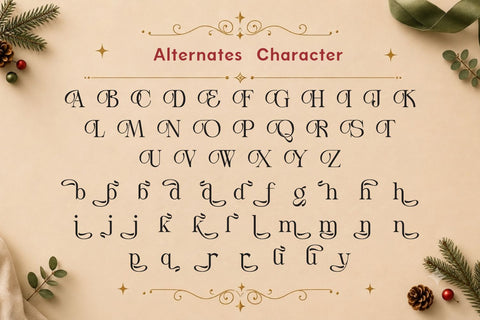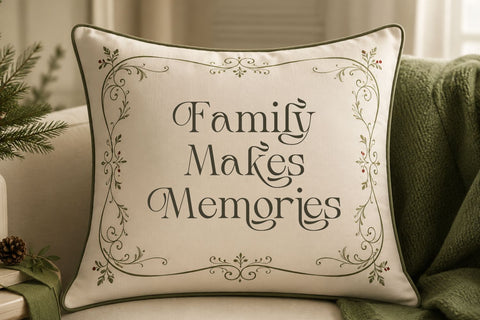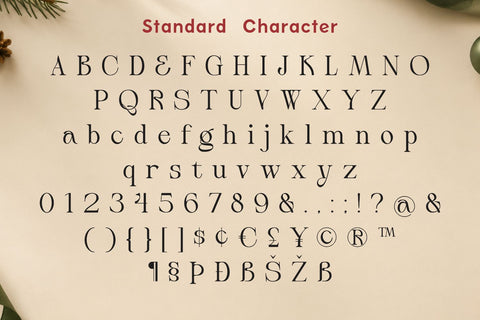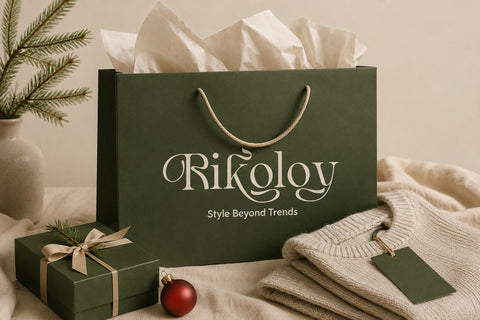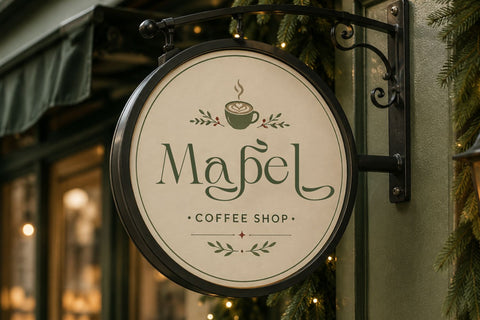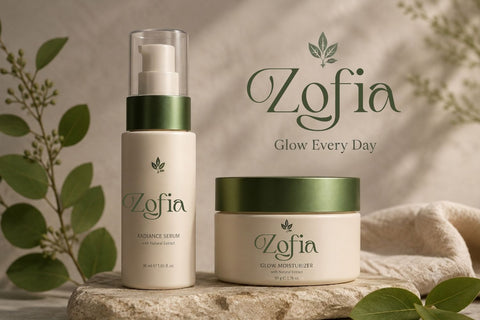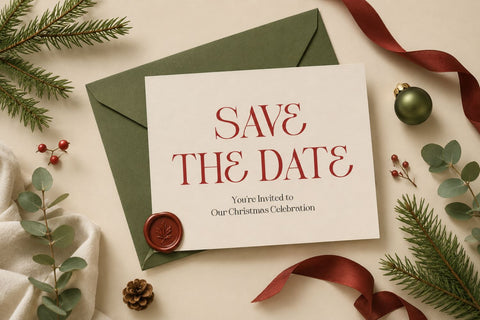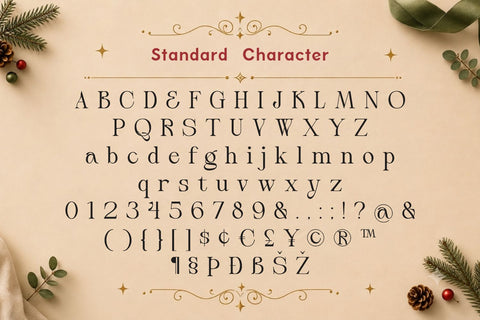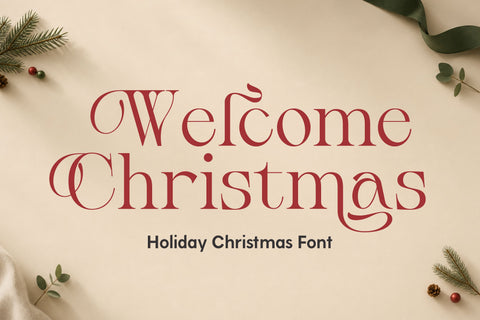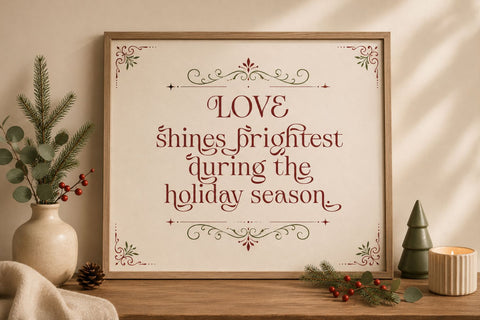
Christmas Font – Welcome Christmas
Welcome Christmas – Christmas Font
Welcome Christmas is a festive Christmas font designed to celebrate the joy, warmth, and excitement of the holiday season. Featuring charming letterforms with a cheerful personality, this font creates a welcoming atmosphere that perfectly captures the magic of Christmas, making every design feel cozy, joyful, and unforgettable.
Crafted with a playful yet elegant holiday style, Welcome Christmas combines decorative festive details with excellent readability. Every character is carefully designed to deliver a beautiful balance between seasonal charm and clean typography, making it suitable for everything from classic Christmas projects to modern holiday branding.
Inspired by snowy winter mornings, glowing Christmas lights, beautifully decorated homes, and joyful family celebrations, Welcome Christmas brings the warmth of the season into every creative project. Its inviting letterforms create typography that feels friendly, heartwarming, and filled with holiday spirit.
The font family includes **2 carefully designed styles: Regular and Italic**, giving you additional flexibility for creating beautiful typographic compositions. The **Regular** style offers a clean, festive appearance that works perfectly for headlines, logos, and branding, while the **Italic** style adds elegant movement and emphasis for quotes, invitations, greeting cards, and decorative accents. Together, they provide a harmonious combination for creating dynamic holiday designs.
Welcome Christmas is perfect for greeting cards, holiday invitations, gift tags, festive packaging, seasonal branding, posters, social media graphics, Christmas promotions, and winter-themed marketing materials. It also works beautifully for Cricut projects, SVG designs, handmade ornaments, stickers, scrapbooking, personalized gifts, and DIY decorations. Whether used in print or digital media, Welcome Christmas adds festive warmth and timeless holiday charm to every creation.
*Key Features*
**Festive Christmas Style**
Charming holiday-inspired letterforms filled with warmth and seasonal spirit.
**2 Font Styles**
Includes **Regular** and **Italic** styles for versatile typography.
**Warm & Inviting Design**
Creates cozy, cheerful, and memorable Christmas compositions.
**Clean & Readable**
Balanced decorative characters with excellent display readability.
**Craft-Friendly Design**
Perfect for Cricut, SVG, DIY projects, and handmade decorations.
**Multilingual Support**
Extended character set for international creative projects.
*Perfect For*
• Christmas & Holiday Designs
• Greeting Cards & Invitations
• Gift Tags & Labels
• Holiday Packaging
• Seasonal Branding
• Posters & Promotional Materials
• Social Media Graphics
• Christmas Decorations
• Cricut & DIY Craft Projects
• Stickers & Scrapbooking
• Personalized Gifts & Merchandise
*Welcome the Magic of Christmas*
If you’re looking for a font that combines festive charm, cozy warmth, and timeless holiday elegance, **Welcome Christmas** is the perfect choice. With its **Regular and Italic styles**, this font family gives you the flexibility to create beautiful typography that captures the joy and wonder of the Christmas season.